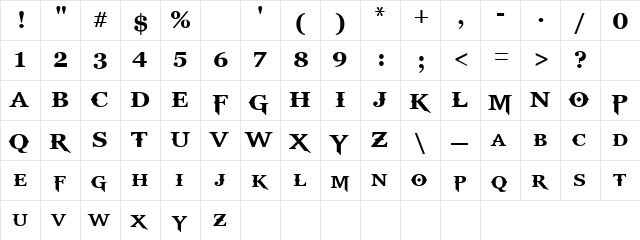
GodOfWar Regular
Design Context for GodOfWar Typeface
GodOfWar is a composed and adaptable typeface that performs quietly and consistently across a wide range of design contexts.